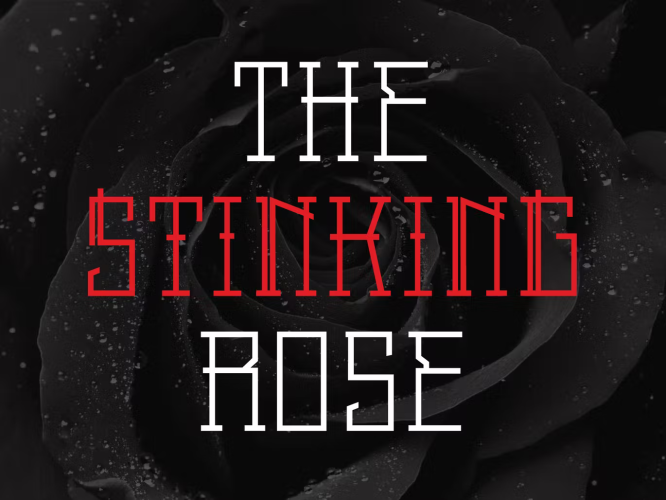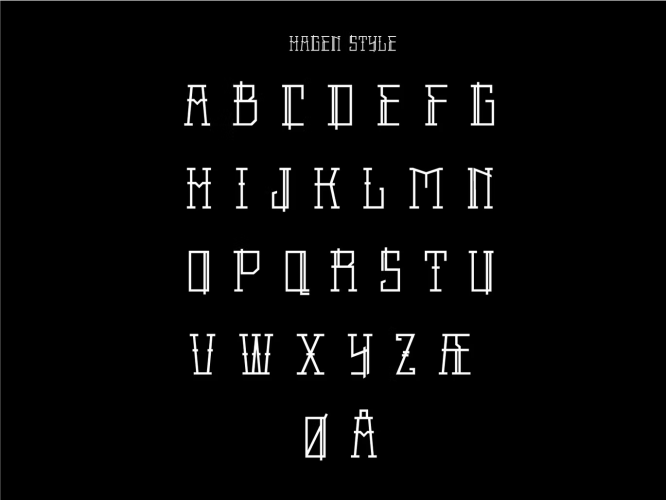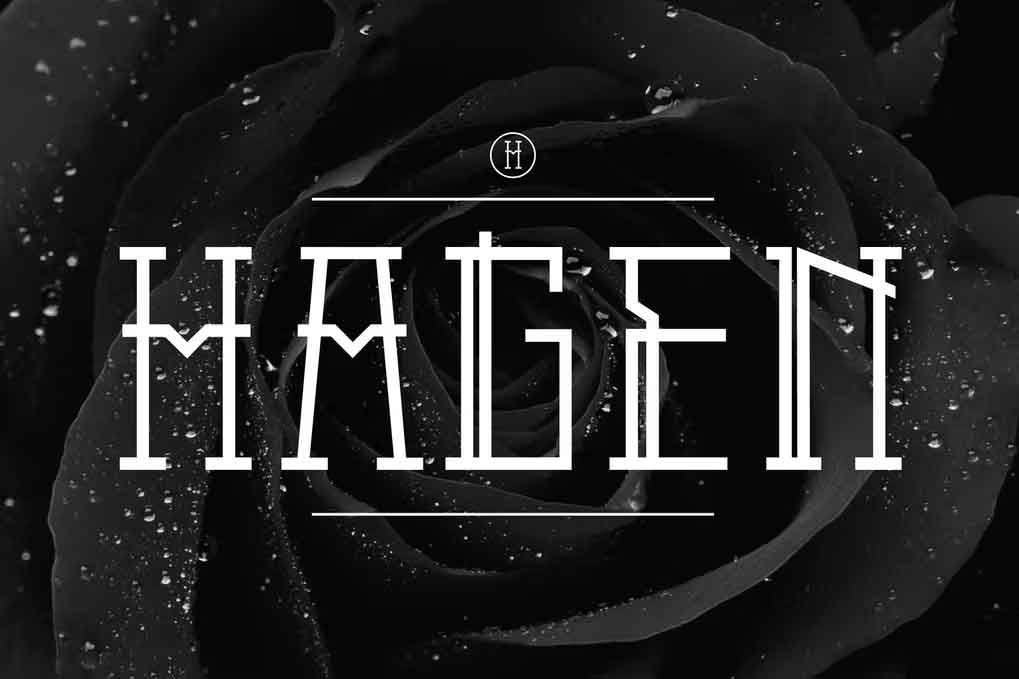
Hagen Font
HAGEN is an fashion avantgarde inspired font, which consists of two weights. The font is builded up with in metal. Then subsequently create a logo for an electronic fest…
HAGEN is an fashion avantgarde inspired font, which consists of two weights. The font is builded up with in metal. Then subsequently create a logo for an electronic festival and several posters. Hagen Contains two weights, it’s regular and style.
Where Hagen Font works best
Hagen Font gives long-form text a classic, trustworthy rhythm — ideal for magazine spreads, annual reports and book interiors.
Pair Hagen Font with generous letter-spacing for wordmarks in fashion, hospitality, wine and jewellery branding.
What is Hagen Font good for?
Hagen Font is a Serif Fonts typeface tagged Branding, Headlines, Poster, Professional. It works well for headlines, logos, posters, social media graphics and branding projects that need a distinctive serif fonts look.